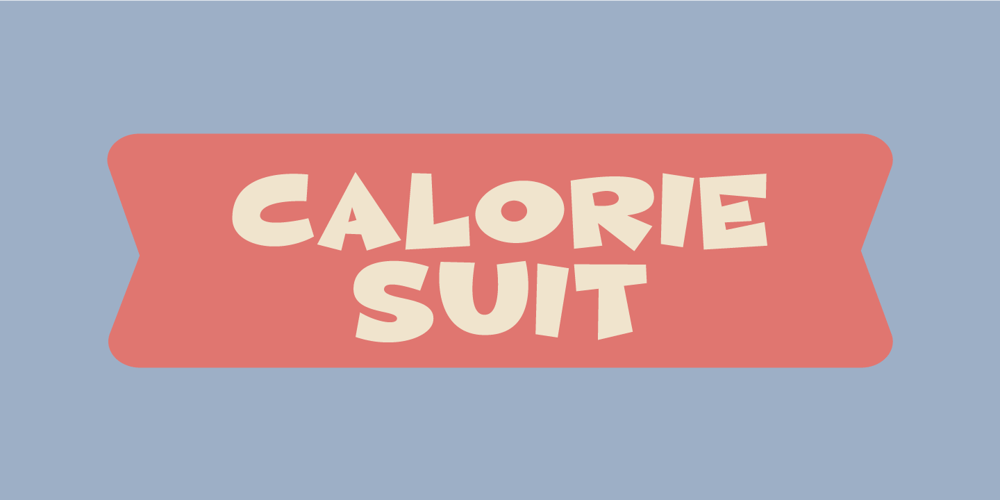
Calorie Suit Font Family was designed by Jakob Fischer and published by PizzaDude.dk. Calorie Suit contains 2 styles and family package options. Calorie Suit is a clean and super sharp comic font. Actually the use of Calorie Suit is quite wide. I’d like to dare you to use this font for massive texts, even though the real force of the font is for one liners or catchwords. Originally drawn in hand, and then cleaned up beyond recognition – but keeping the characteristics of the original sketch. You may notice influences from graffiti here and there too! 🙂